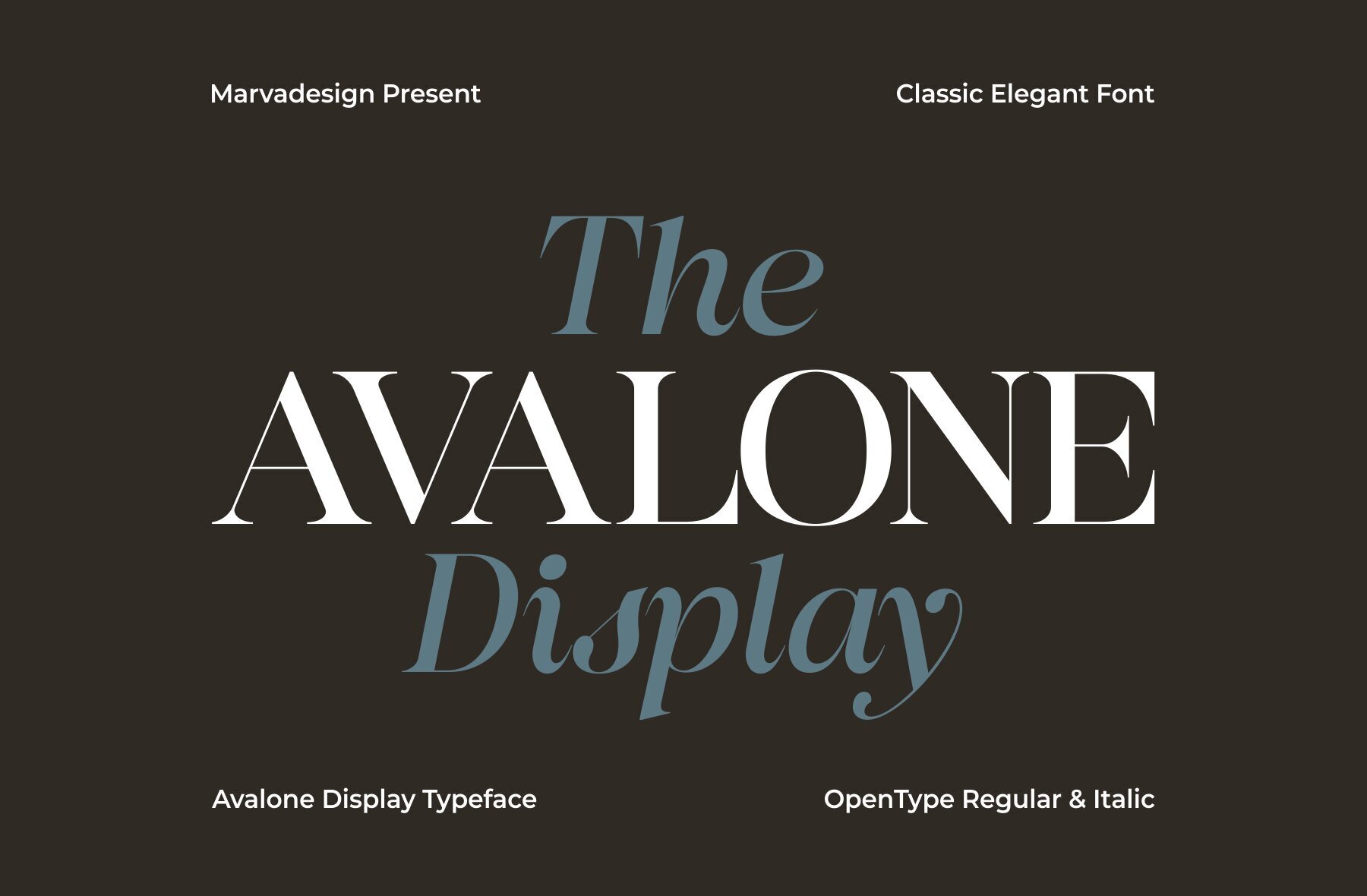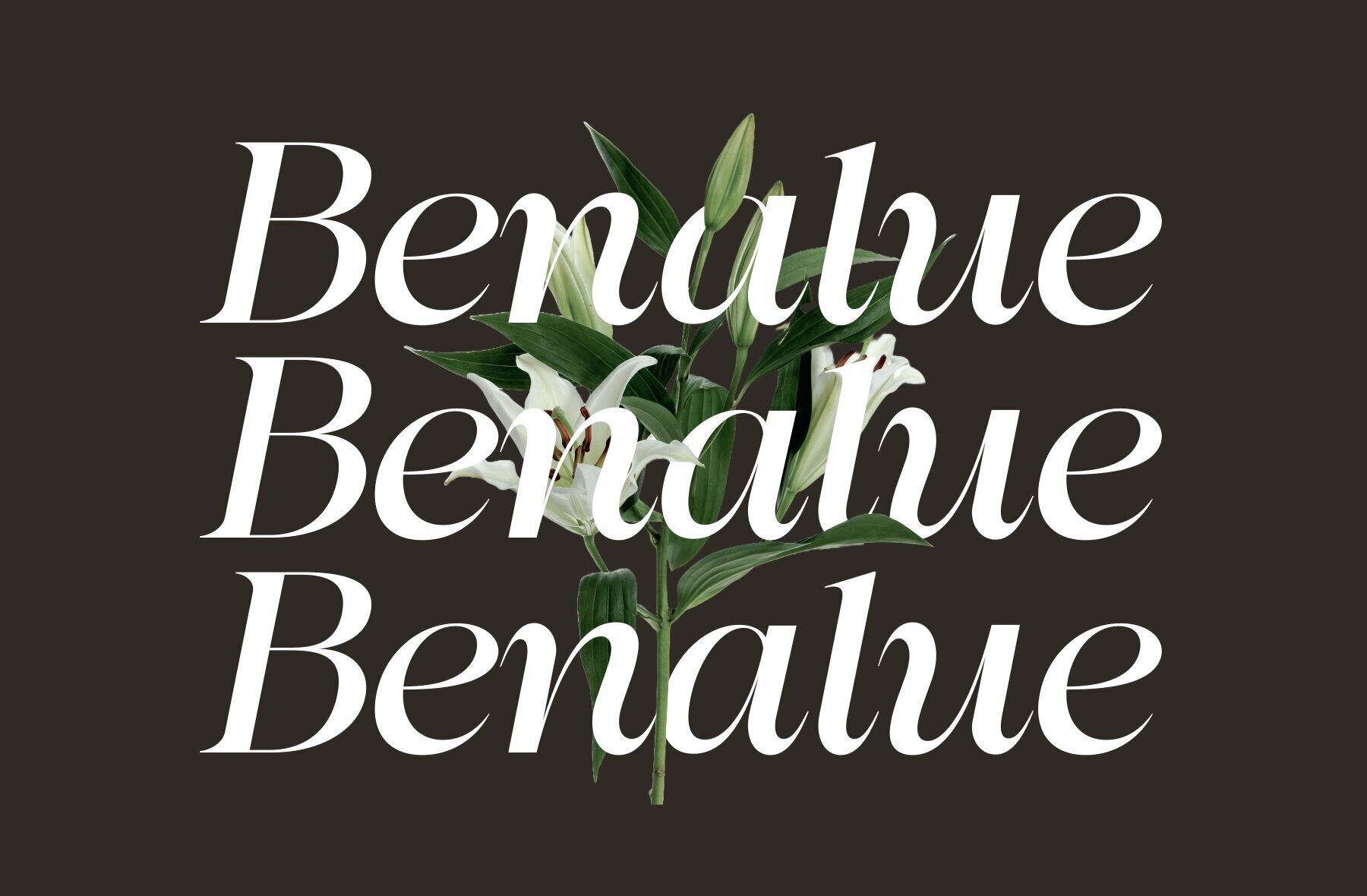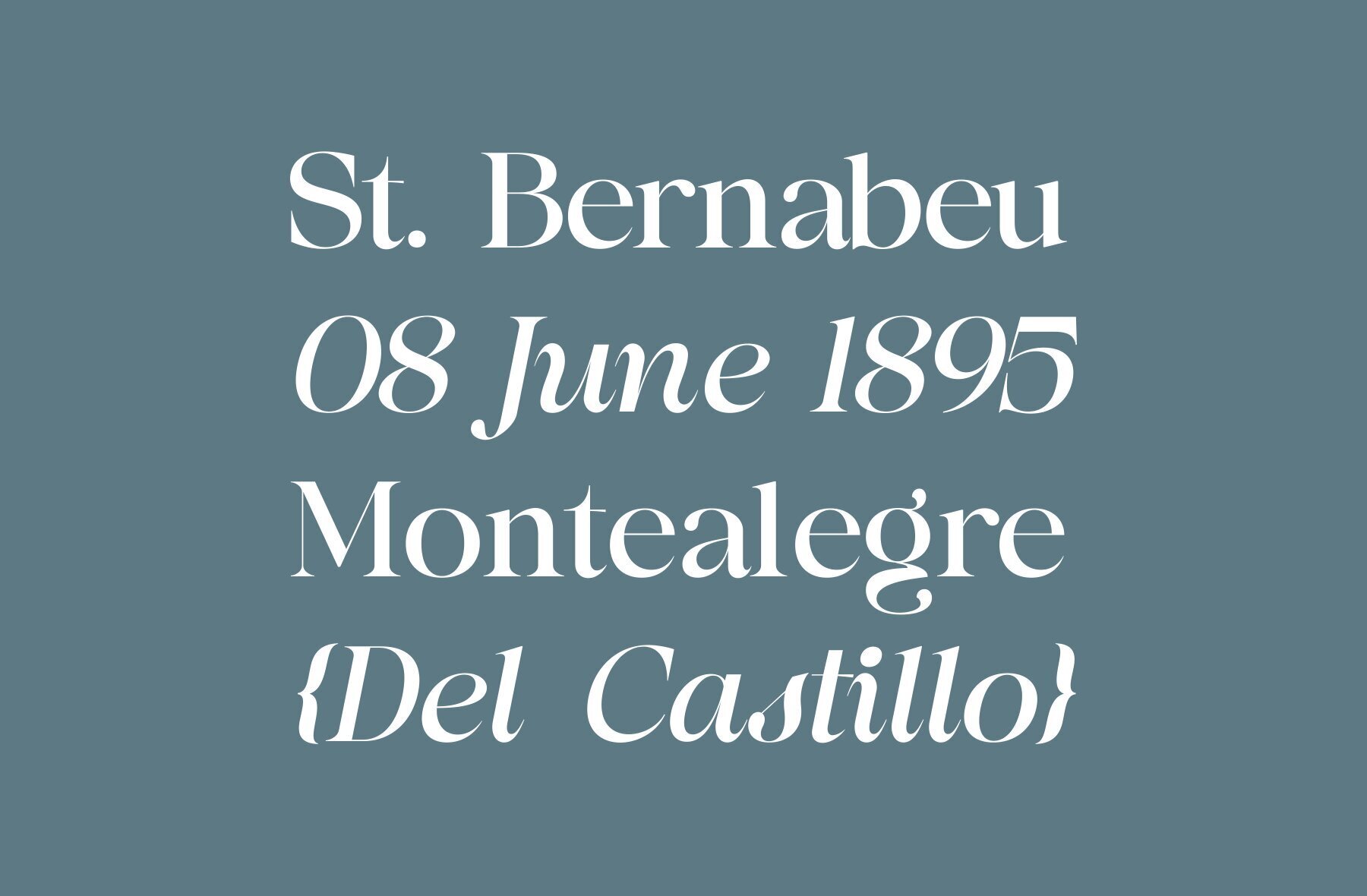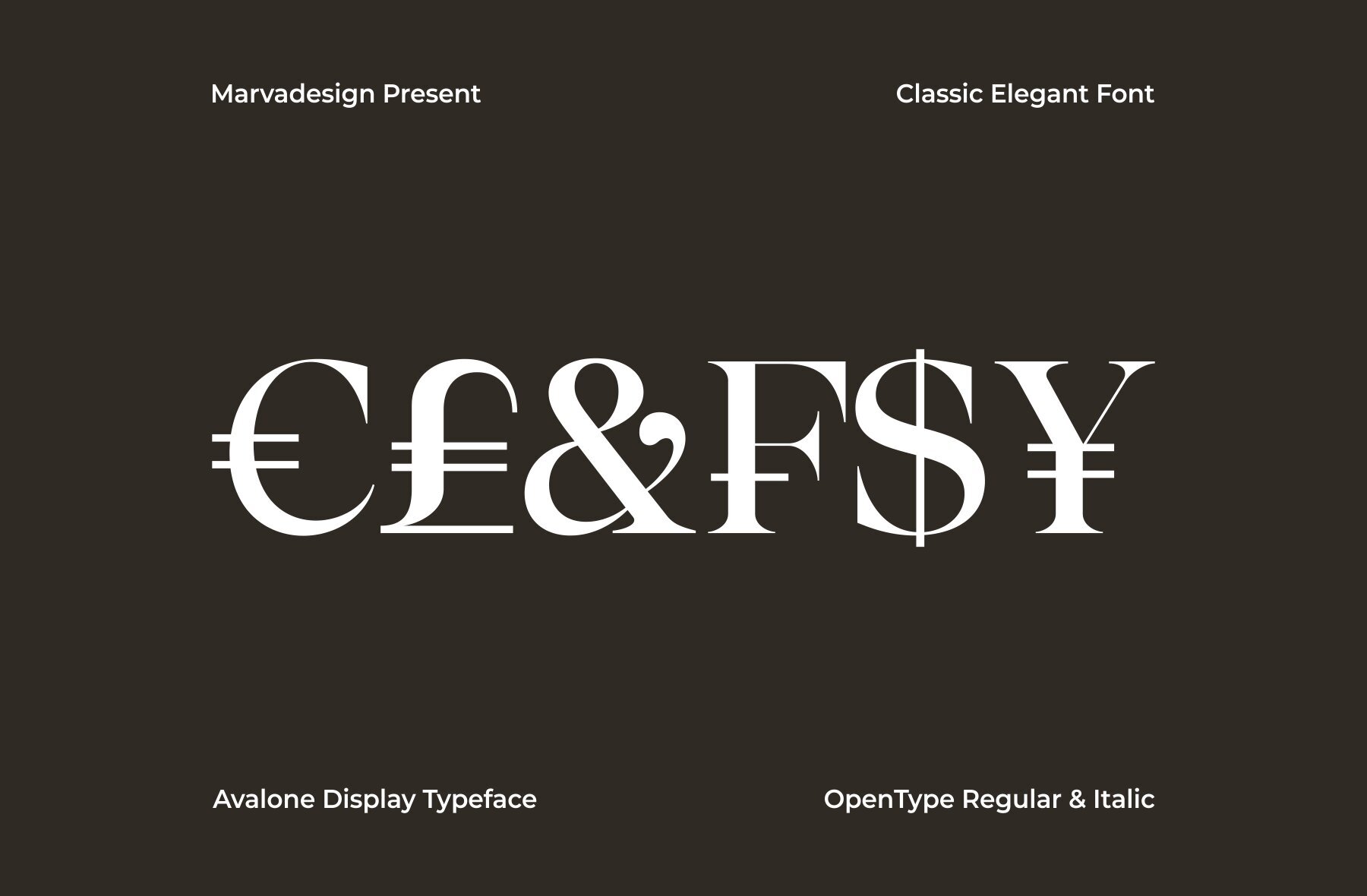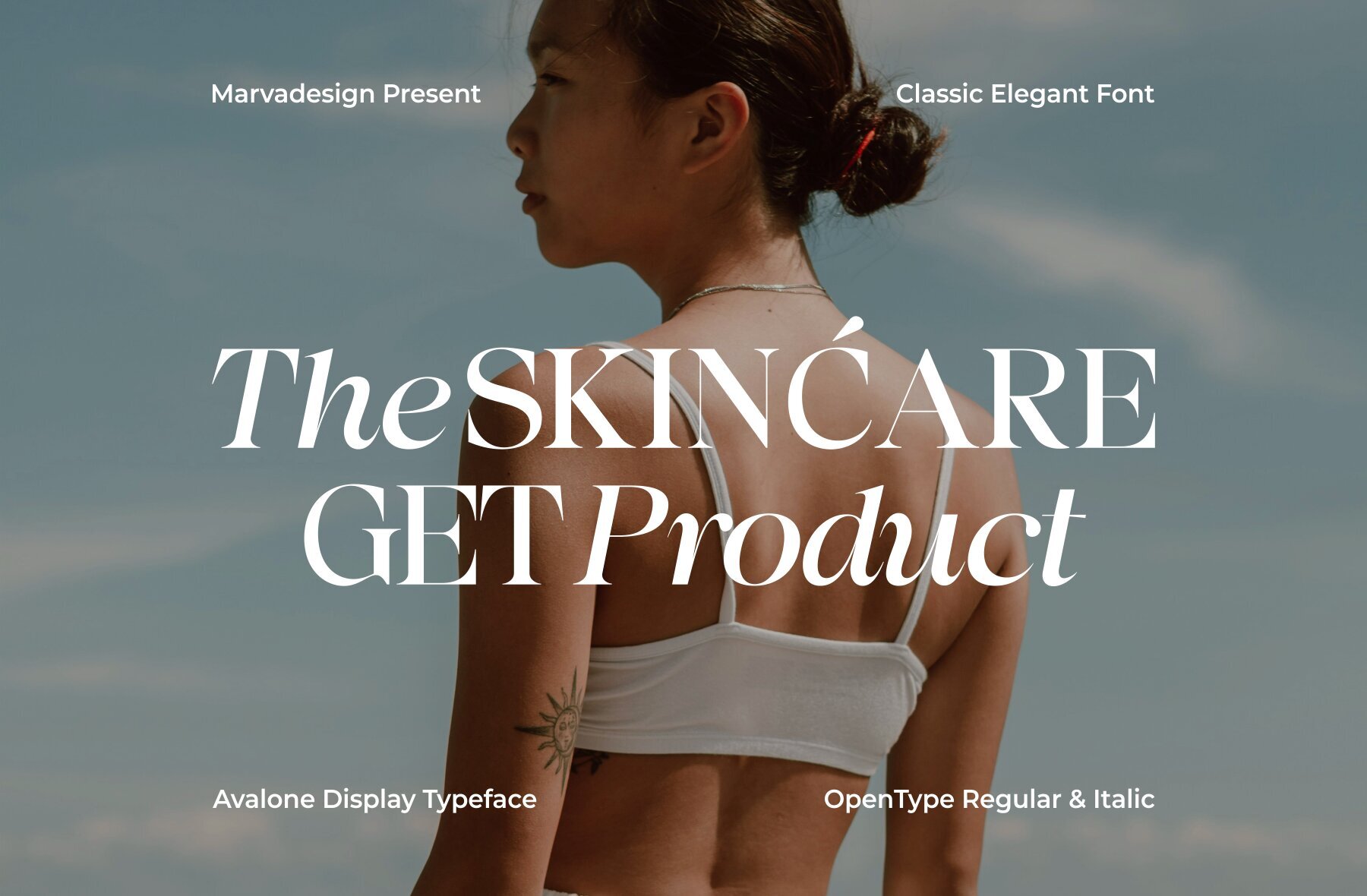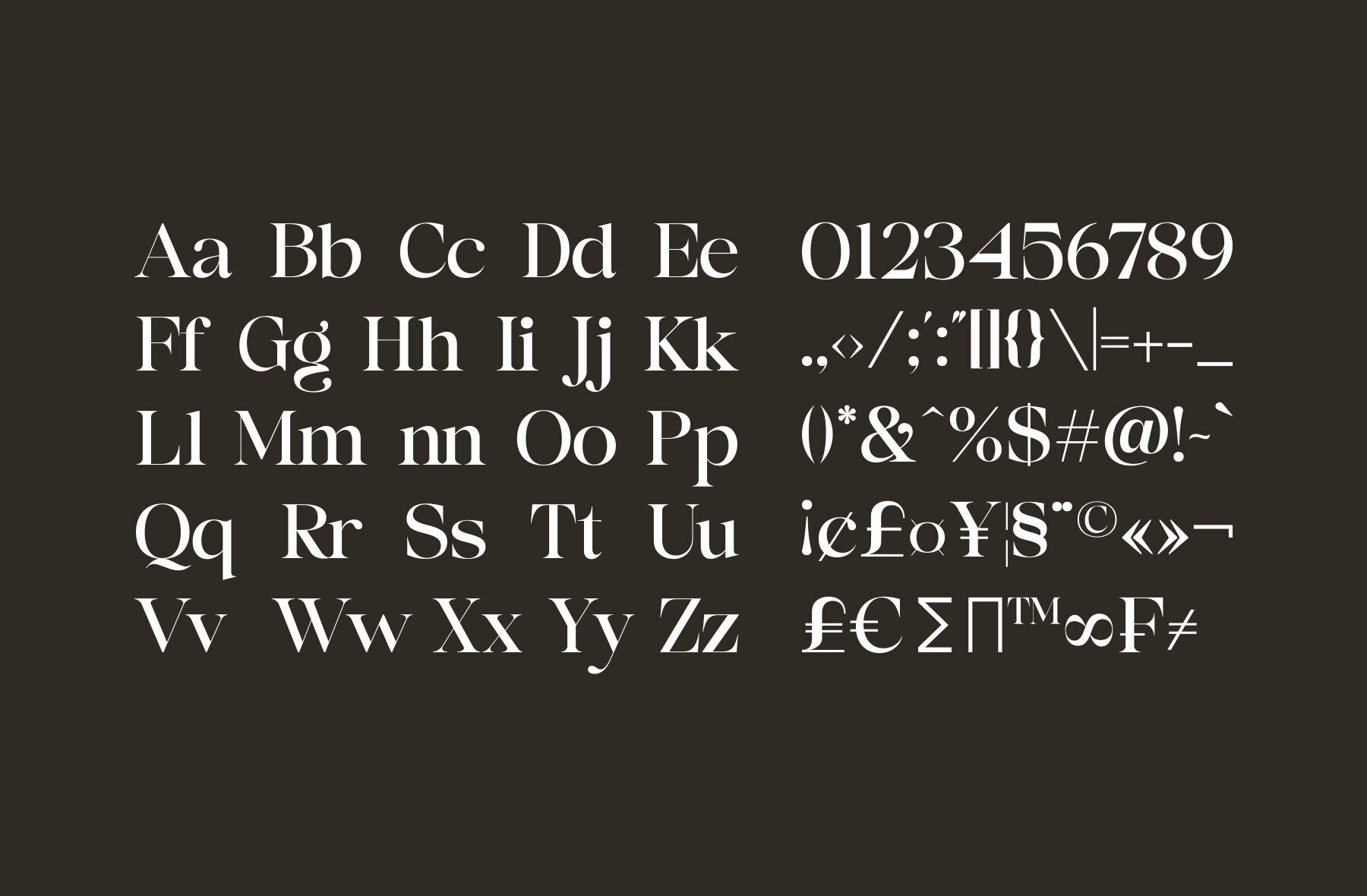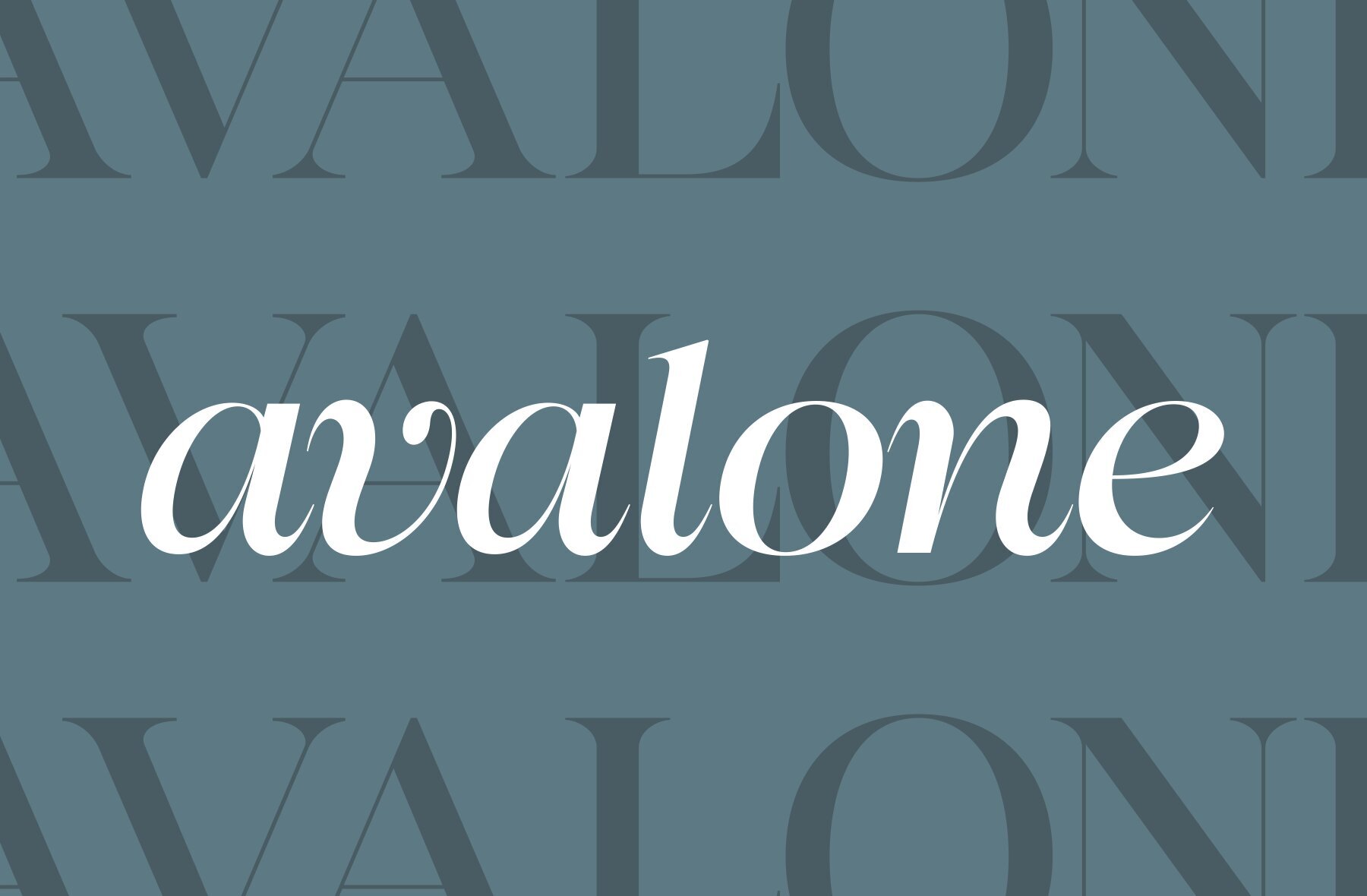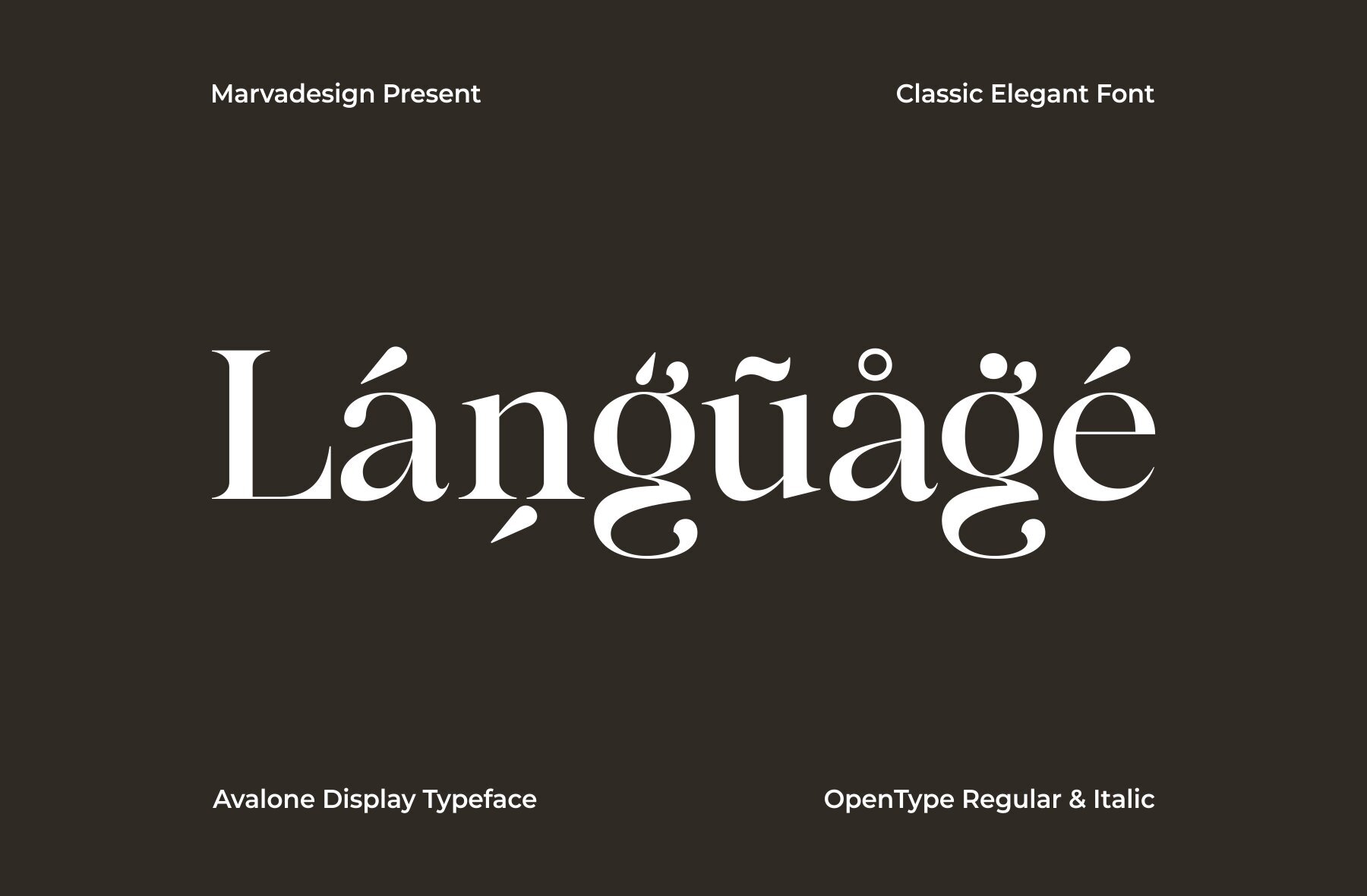
Avalone Font
Introducing Avalone font is an exquisite typeface that comes in two distinct styles Regular Serif and Italic. Known for its elegant and captivating character, Avalone exudes sophistication and charm in every letterform. The Regular Serif style features classic serifs that add a touch of tradition and refinement, making it perfect for formal and professional designs. On the other hand, the Italic style introduces a graceful slant that enhances the font's elegance, ideal for conveying emphasis and motion while maintaining its polished appearance. Whether used in print or digital media, Avalone's graceful aesthetics make it a versatile choice for a wide range of design projects.